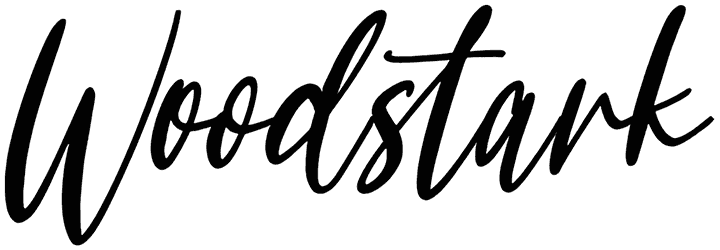
Woodstark Font
Woodstark is a script font that can blow your mind and provide new ways to implement your creative ideas. The shape of the short letters and connections of this handwritten font looks like it was written by an adult and gives it the feeling of an intimate dedication letter on the book’s cover.
So, it can be ideal for facilitating your work process. Because of the lack of numbers, you should look for a suitable combination of designs for this part.